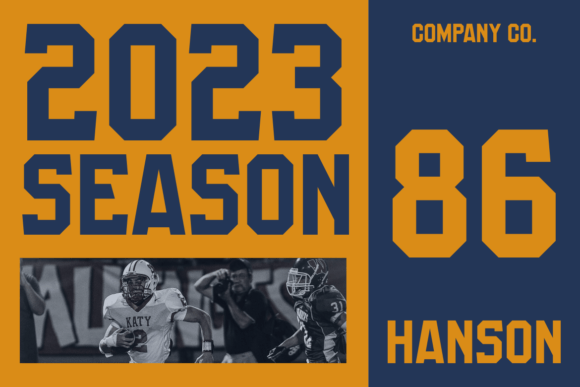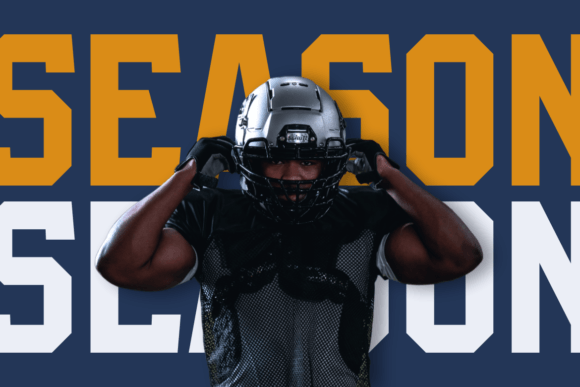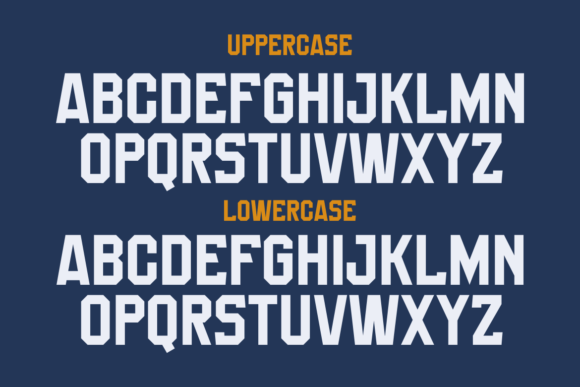
Introduction to Obised Font
Imagine you’re in the middle of a creative project, and you’re struggling to find the perfect font to match the energetic vibe of your design. The words “Obised Font” suddenly pop into your head, and you can almost envision the dynamic, bold letters that will bring your concept to life. As designers, we’ve all been there – searching for the perfect design resource to elevate our work.
The Obised Font is more than just a font – it’s a reflection of the spirit and energy that fuels our passion for sports and physical activity. With its high-quality design and transparent background, this font is the perfect addition to any brand identity, sports company, or major sporting event. And the best part? It’s available for free download, making it an invaluable resource for designers of all levels.
Key Features of Obised Font
- Comes with transparent background for easy customization
- Unique characteristics: modern aesthetic, clean lines, and a versatile style suitable for a wide range of creative projects
Honest Review: Obised Font
- ✨ The Obised Font has a unique, elegant design that adds a touch of sophistication to any creative project.
- ✨ The font is highly customizable, making it easy to adjust the size, color, and style to fit your design needs.
- ✨ The transparent background feature allows for seamless integration with other design elements.
- ⚠️ The Obised Font may not be suitable for use in small text sizes, as it can become difficult to read.
Overall, I’m impressed with the Obised Font as a design resource. Its high quality, versatility, and unique design make it a valuable addition to any designer’s toolkit. With a little creativity, the Obised Font can help take your designs to the next level.
Obised Font
To get the most out of Obised Font, use it in combination with other design elements, such as graphics and images. Experiment with different font sizes, styles, and colors to create unique designs. Also, make sure to use a transparent background to give your designs a professional look.
Obised Font is ideal for creative projects, such as logos, graphics, and presentations. It’s also suitable for reports, documents, and any other design project that requires a high-quality font.